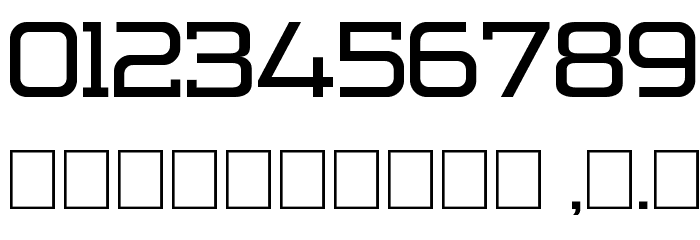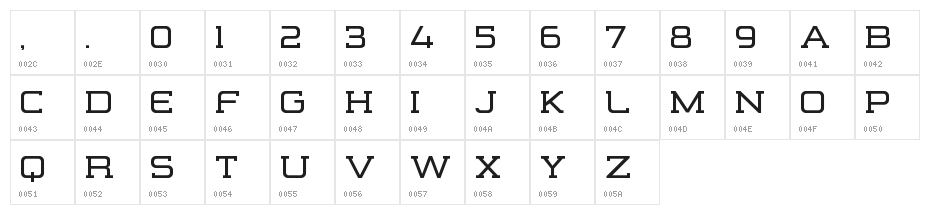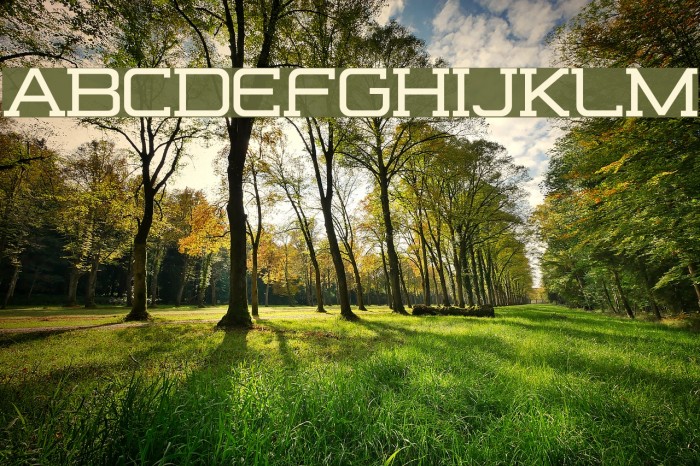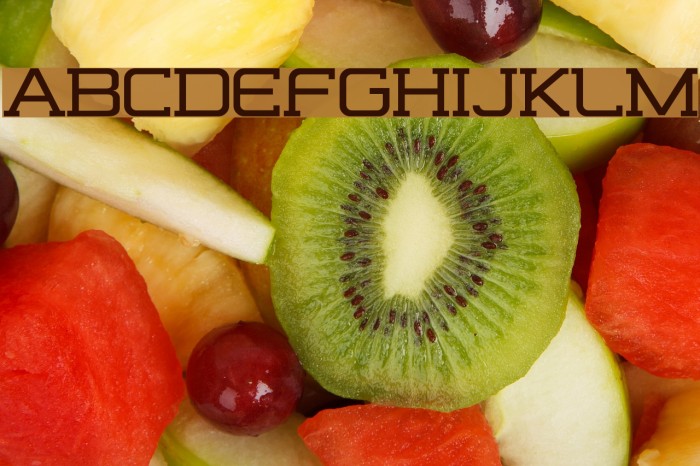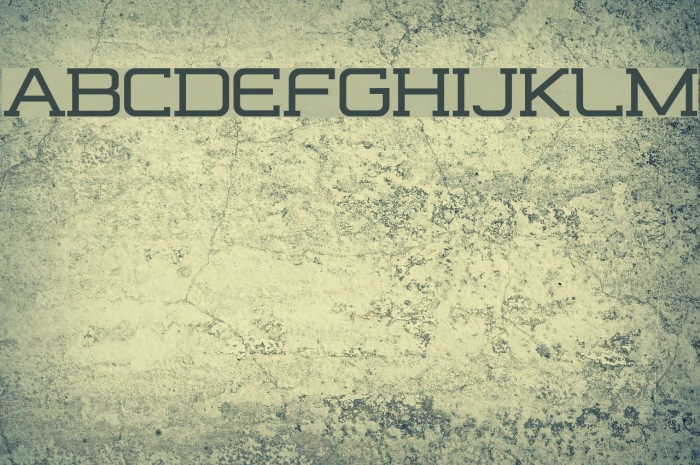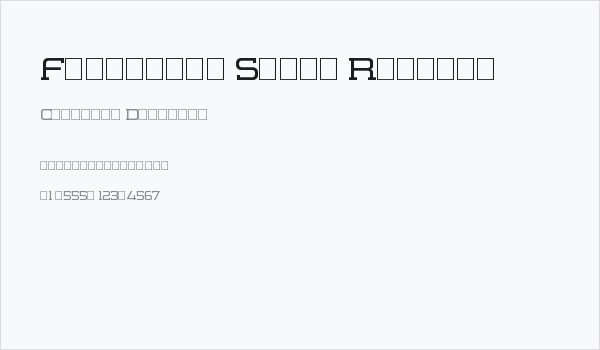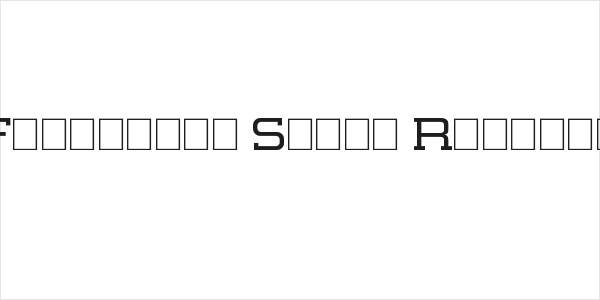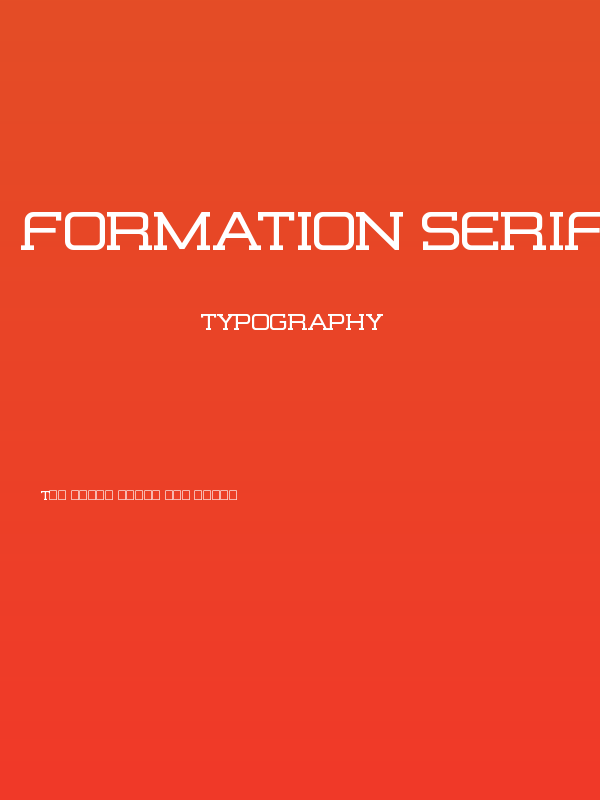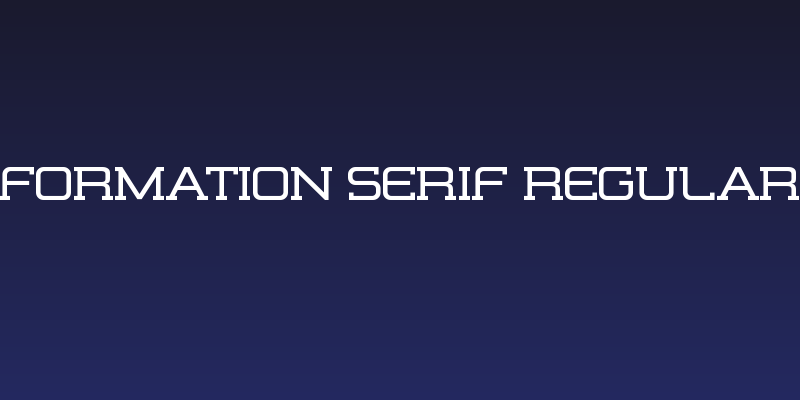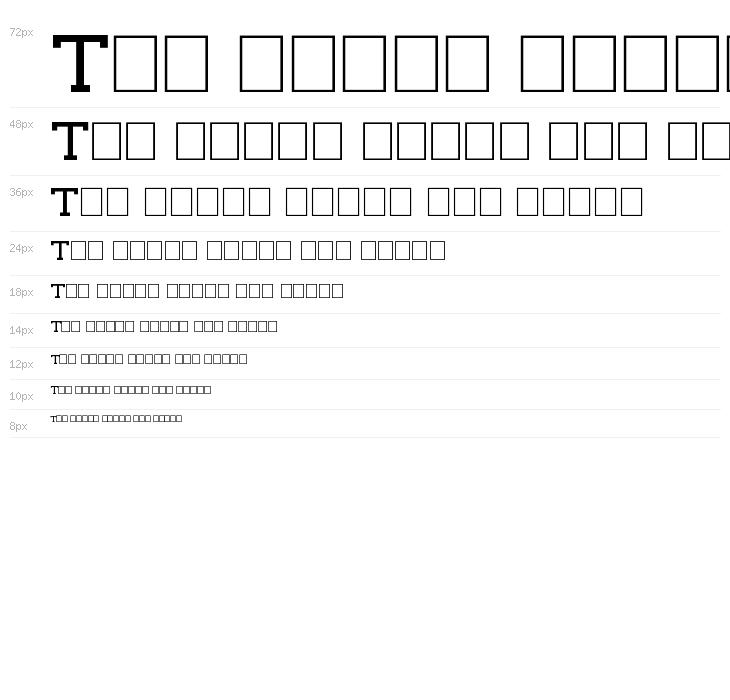
Formation Serif Regular Font
Formation Serif Regular Description
This font exhibits a modern and structured design, characterized by its clean lines and geometric shapes. The uppercase letters are bold and prominent, with a uniform stroke width that conveys a sense of stability and strength. The numerals are equally robust, maintaining the same geometric precision. The overall appearance is sleek and contemporary, making it suitable for a variety of design applications. The font's simplicity and clarity ensure readability, while its modern aesthetic adds a touch of sophistication.
| Proposed Projects | Ideal for branding, headlines, posters, and digital media where a modern and strong presence is desired. |